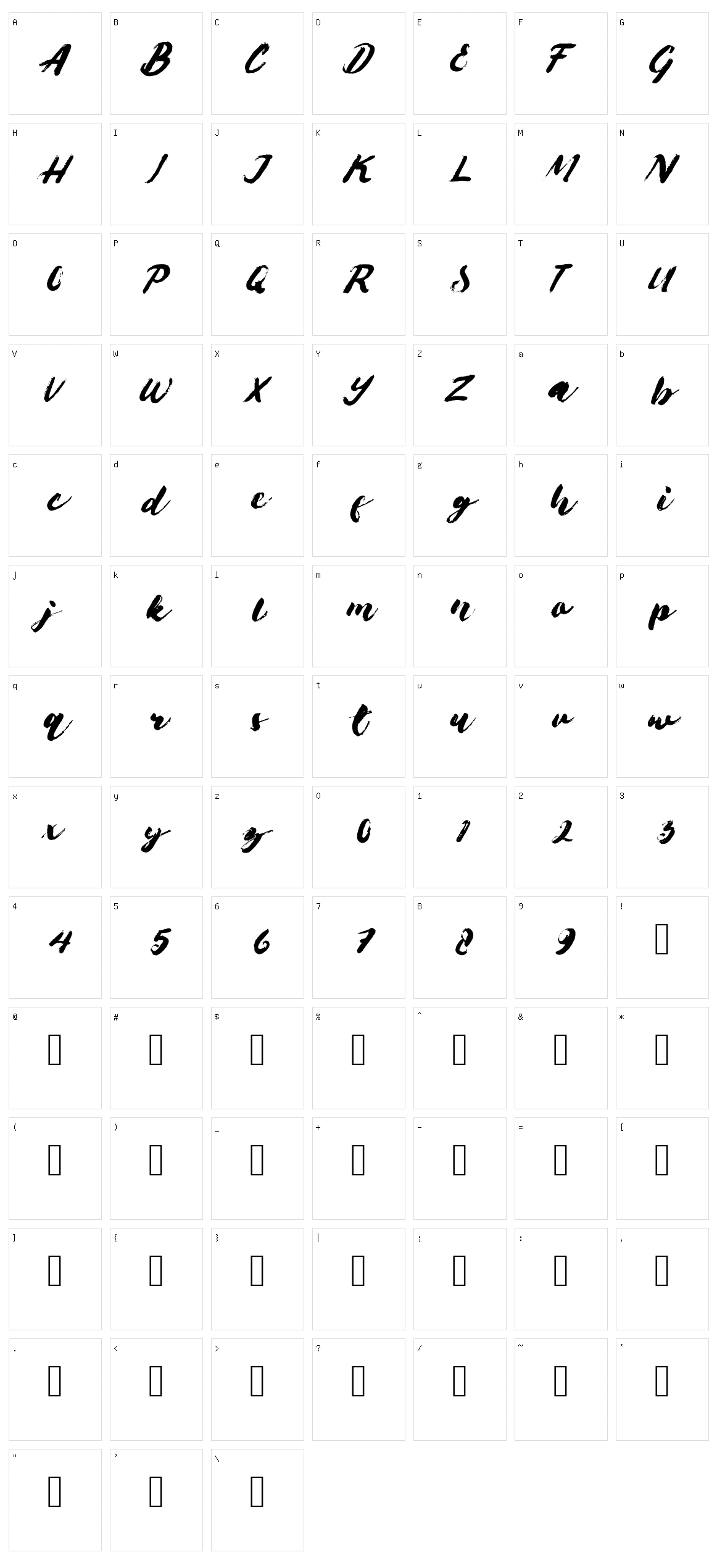
The free font Brushes is carefully designed by kokostd, showcasing a thoughtful balance of creativity and usability and falls under the Script font style. When you download the ZIP file, it contains only 35.17 KB of font files, making it lightweight and quick to download. Please review the license details below to understand permitted usage and distribution rights. If license information is not available, we recommend using this font for personal projects only or contacting the author directly for commercial usage permissions.